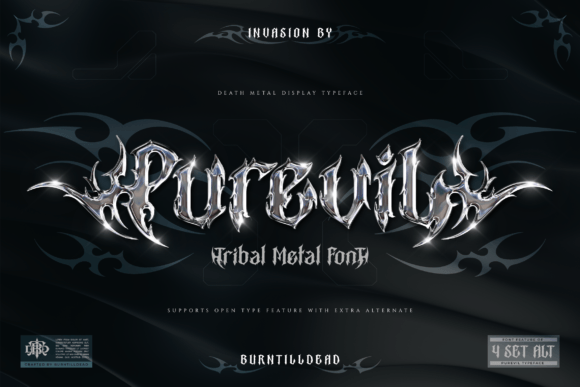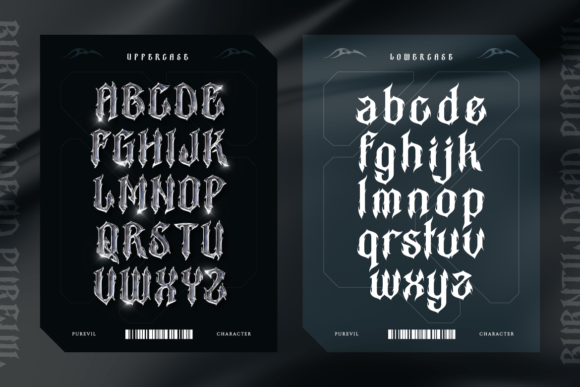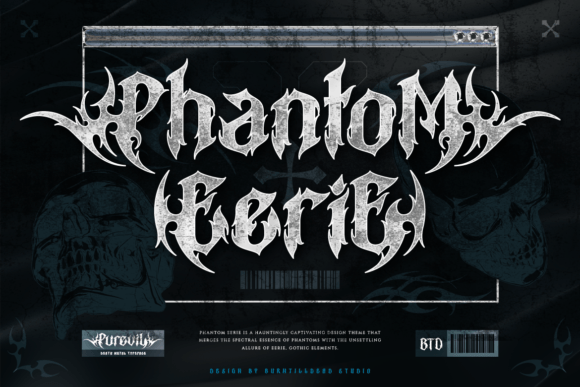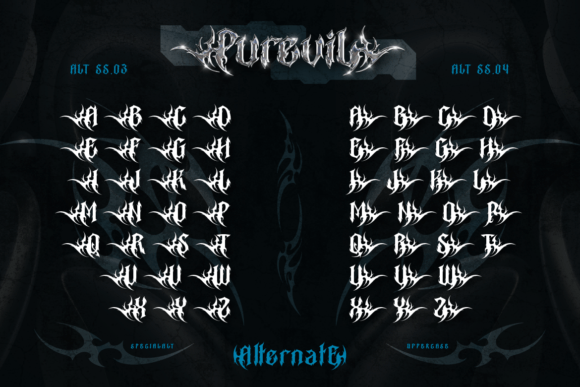
Purevil Font: Bold Metal Display Font for Logos & Album Art
About the Purevil Font
Crafted with precision, the Purevil Font is ready to bring your ideas to life. Introducing Purevil, a tribal metal font that has bold letters but still looks modern with a unique shape every each letter. Also, this font includes ornament so perfect choice for those of you who are creating metal-themed designs such as album covers, metal band logos, music concert posters game interface and many others. This tribal metal font can add extra punch to your design.
Purevil’s aggressive, bold aesthetic makes it ideal for headlines, logos, and short impactful text within posters and album art. It excels in conveying power and rebellion, perfect for metal music, gaming, or brands targeting a similarly edgy audience. Avoid using it for body text or lengthy passages; its strong forms become visually overwhelming at smaller sizes and in continuous blocks.
Consider pairing Purevil with a clean sans-serif like Montserrat for contrast, balancing its raw energy with a touch of modern sophistication. Alternatively, a simple serif like Lora can add a layer of classic elegance to temper its intensity, creating a more balanced and nuanced design. For a more cohesive aggressive approach, a geometric sans-serif would reinforce the bold, sharp lines.
Purevil’s core personality is undeniably bold and rebellious. Its tribal influences lend a raw, untamed energy that resonates with strength and defiance. It’s best suited for projects that demand a powerful visual statement and a distinct edge.
Purevil Font Usage Examples
Purevil Font Example